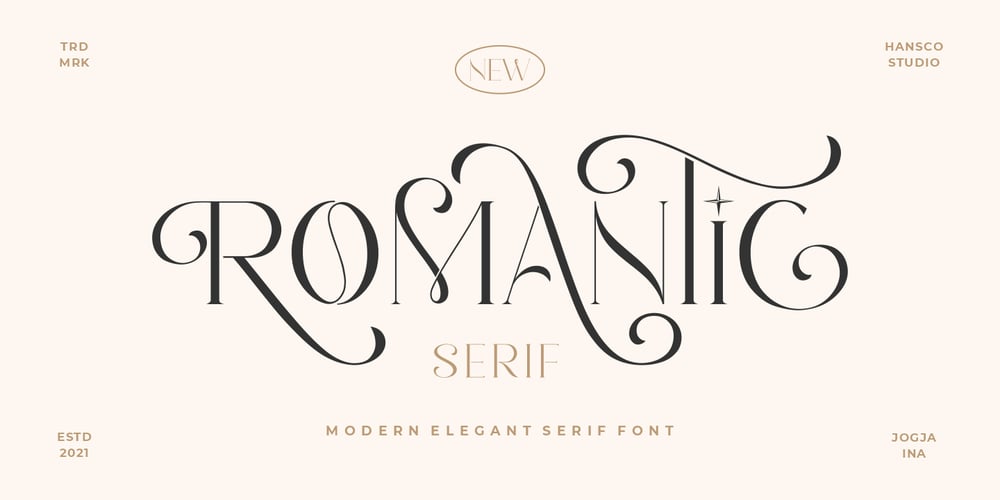
Romantic Serif
Romantic Serif font
Romantic Serif Font Family was designed by Burhan Afif and published by HansCo. Romantic Serif contains 1 styles and family package options. Romantic Serif is a modern and elegant display serif fonts that had a sleek and luxury feel. This font is perfectly into classy moodboards and logos projects. Romantic Sans come with a unique all caps and many alternates and ligature plus numbers, punctuation & multilingual letters.This font is PUA encoded which means you can access all of the glyphs and swashes with ease!Features : uppercase & lowercase ( in All Caps ) numbers and punctuation multilingual alternates PUA encoded We highly recommend using a program that supports OpenType features and Glyphs panels like many of Adobe apps and Corel Draw, so you can see and access all Glyph variations.how to access alternate? : https://hanscostudio.com/tutorial/Enjoy!